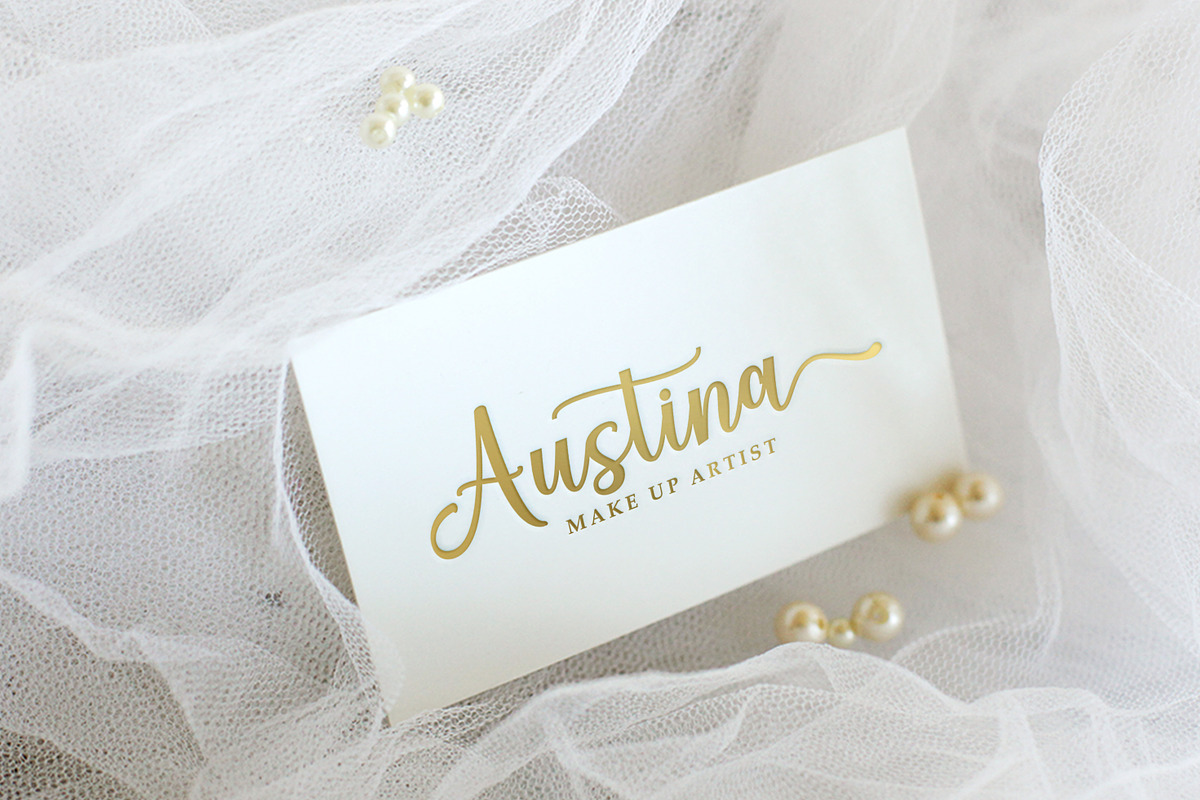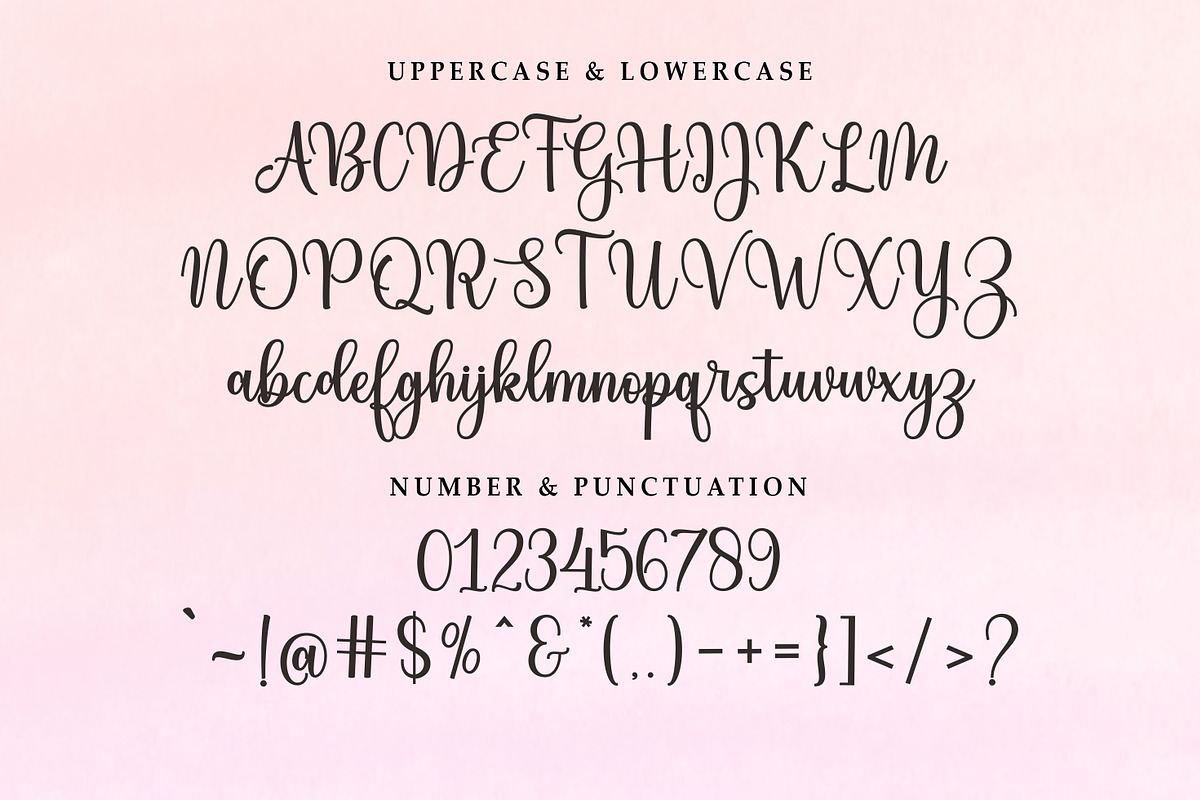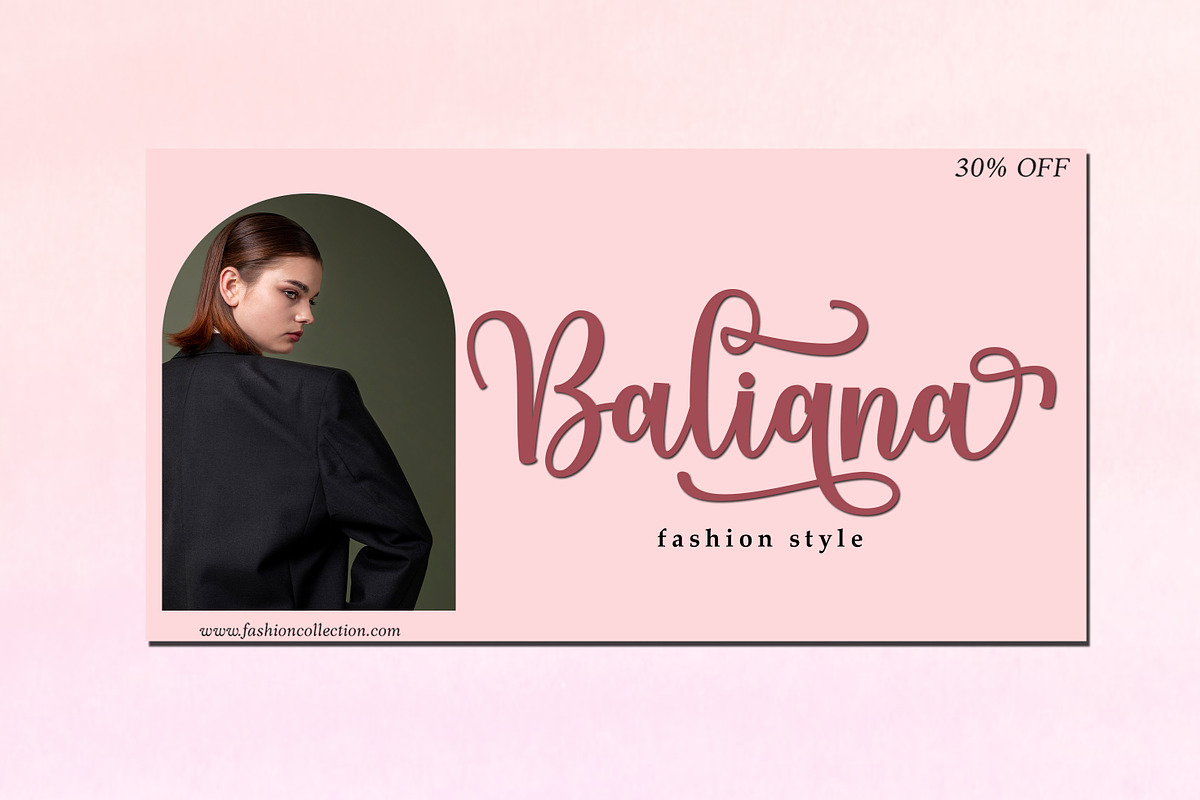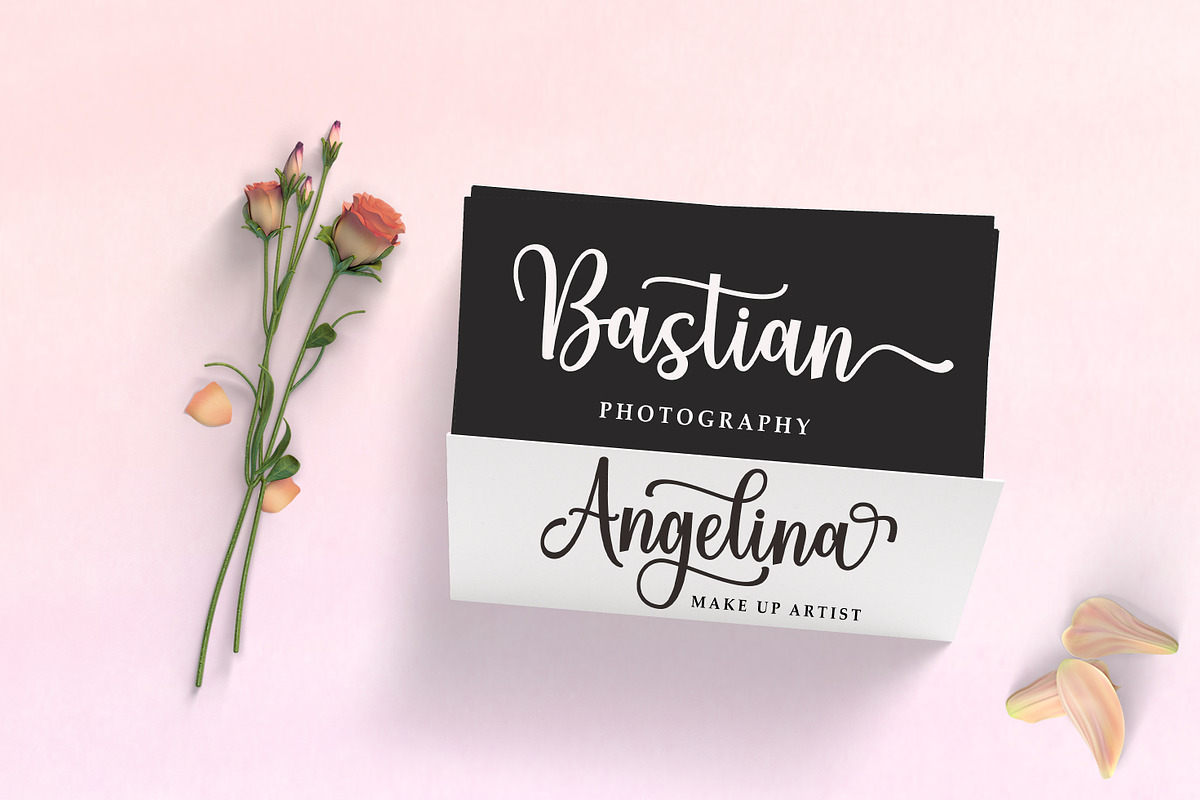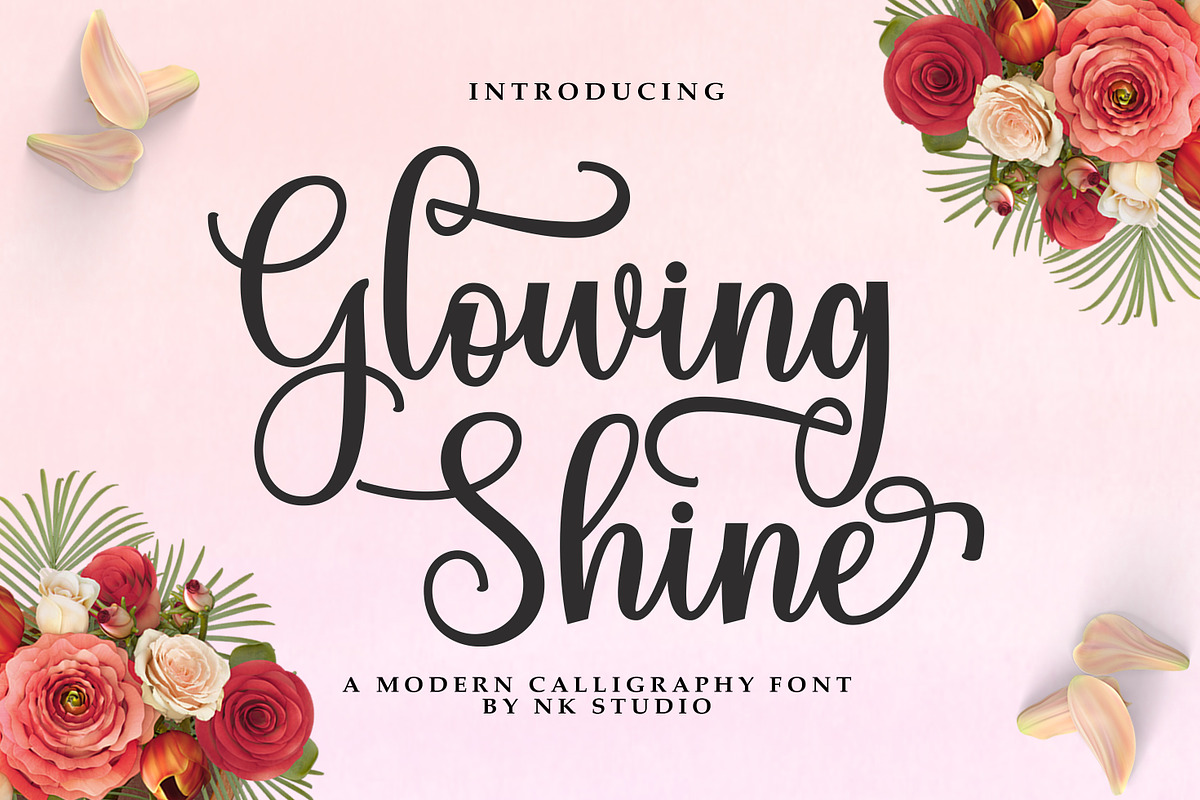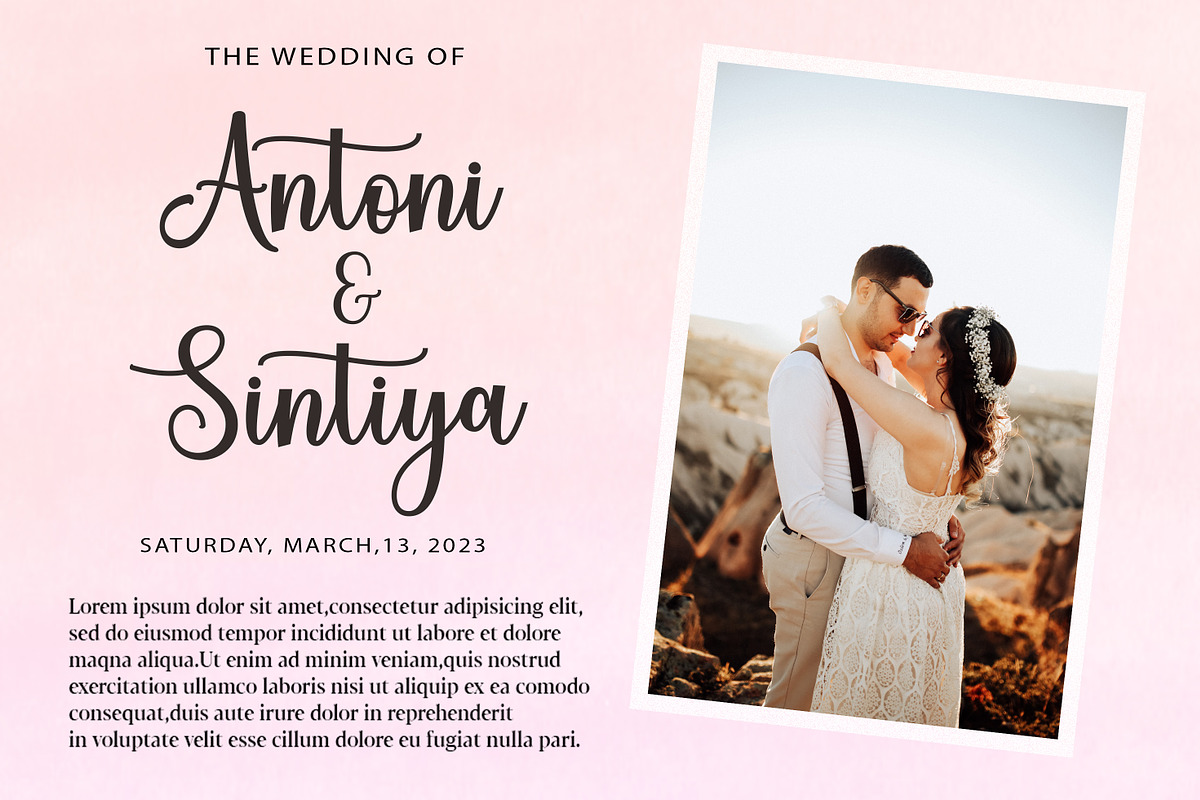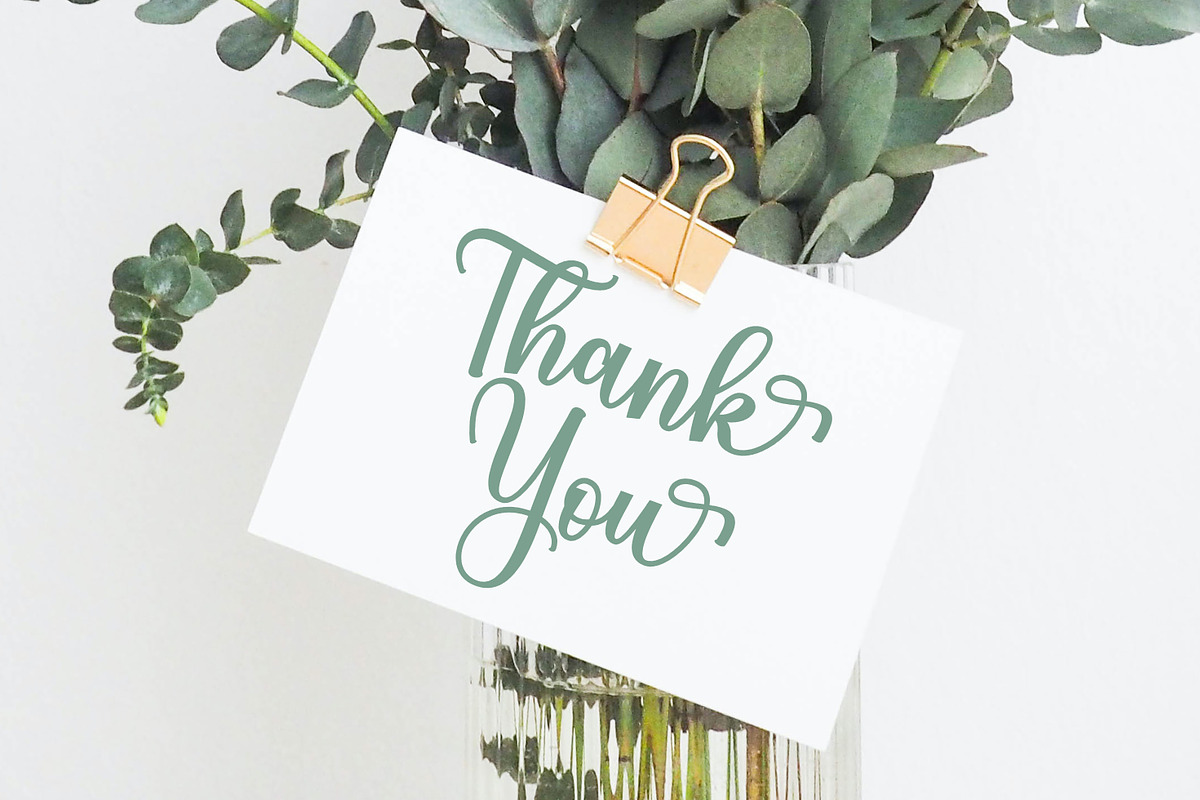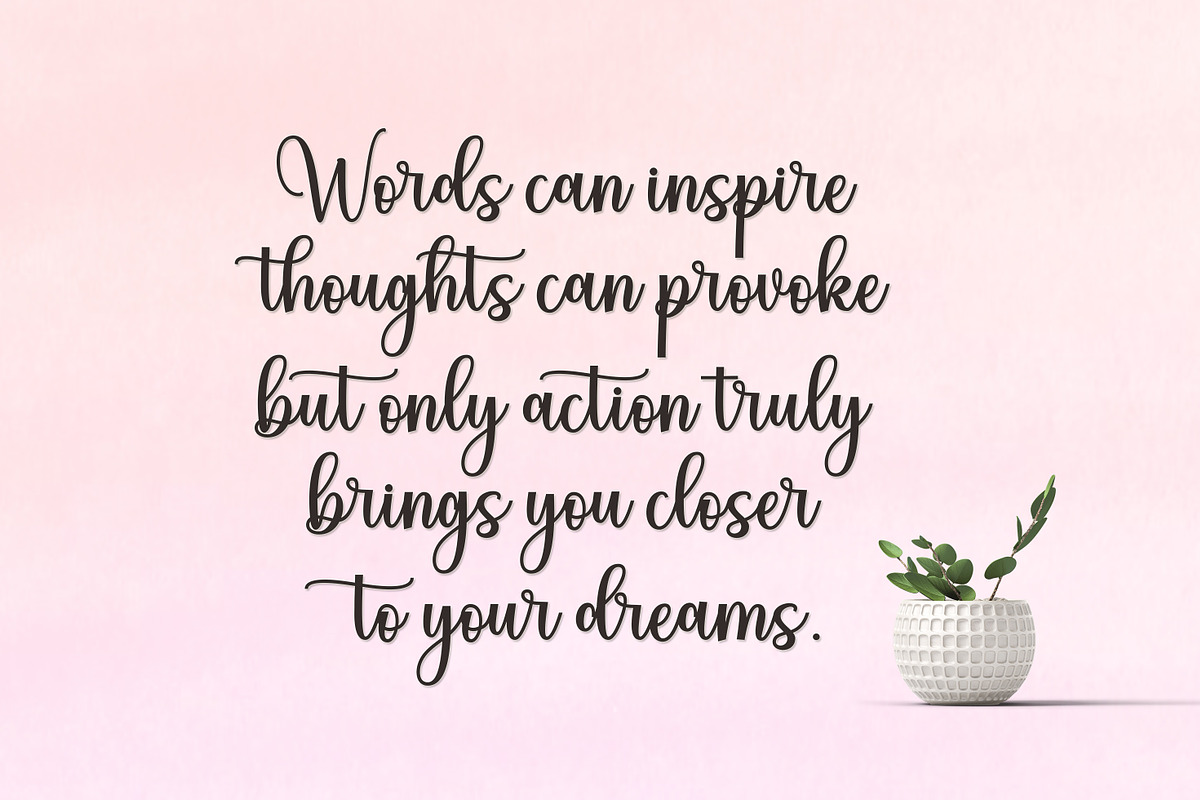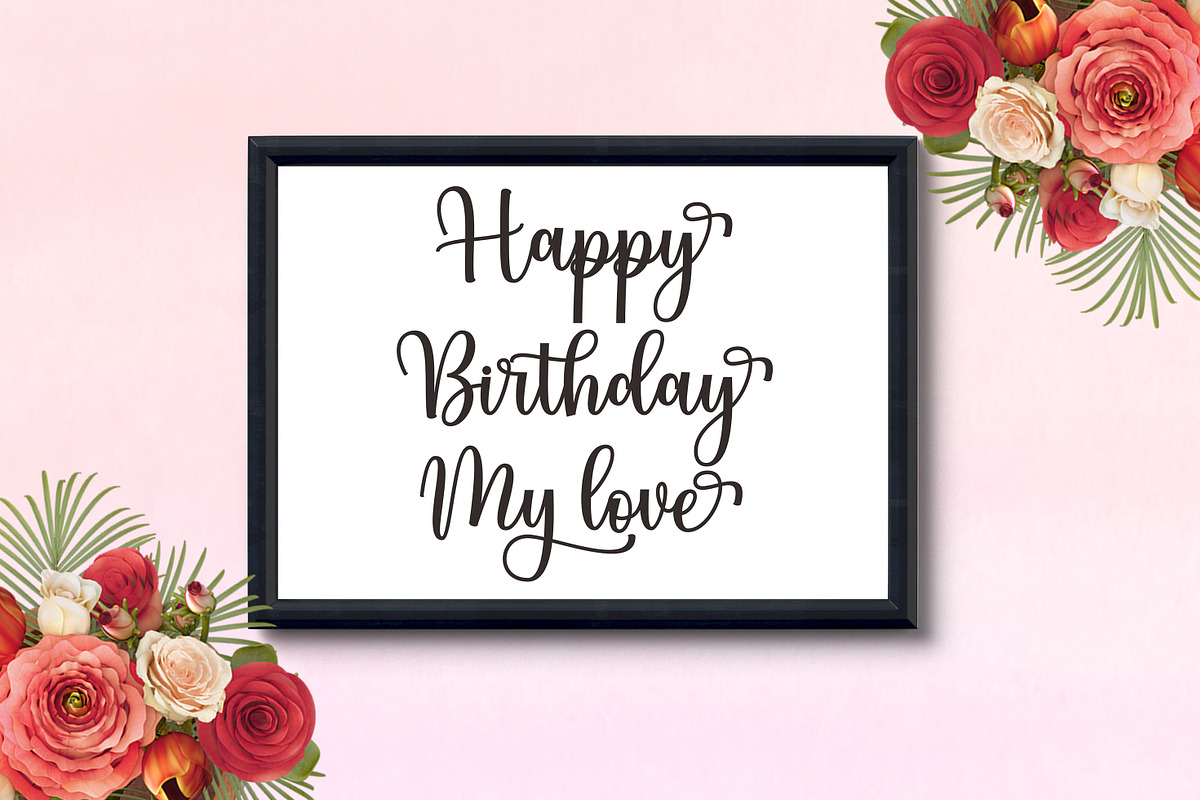
Glowing Shine
introduce
Glowing Shine with beautiful handwriting style. Equipped with 300+ glyphs. Glowing Shine is perfect for branding projects, home appliance design, product packaging, use in business cards, invitation cards, etc. Just like a stylish text overlay to a background image or anything else that needs a touch of elegance.